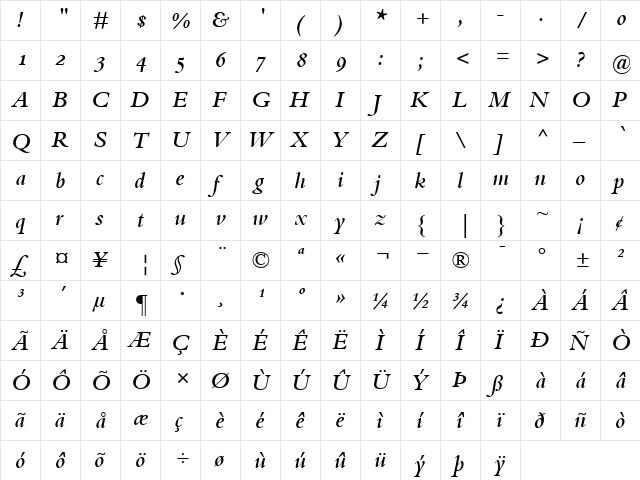
BemboOldstyleFigures-SemiBold Semi BoldItalic
Design Context for BemboOldstyleFigures-SemiBold Typeface
BemboOldstyleFigures-SemiBold brings classic typographic sensibility to the table — its serifs and measured letterforms reflect centuries of print heritage. The slanted form adds forward momentum and visual energy. The heavy weight commands attention and anchors typographic hierarchies.